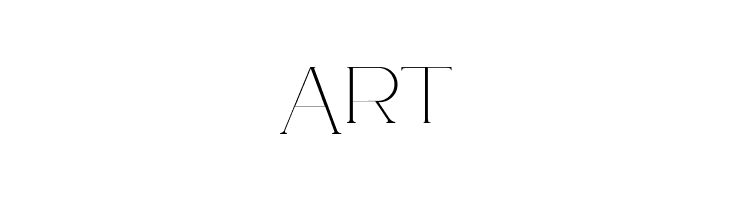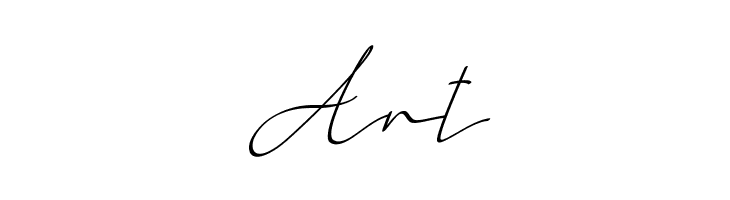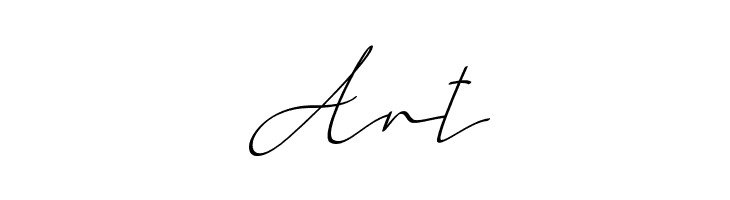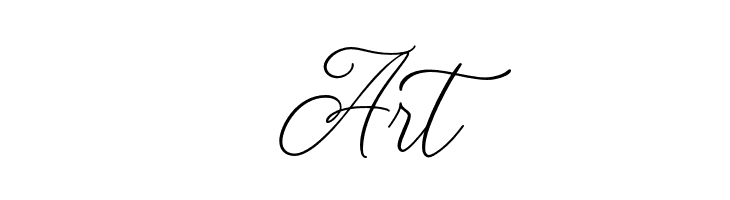
A classic serif font with high contrast and elegant, refined letterforms.
A high-contrast serif font with elegant, refined strokes and sharp serifs.
A classic serif font with elegant strokes and a refined appearance.
A high-contrast, elegant serif font with sharp serifs and refined curves.
A classic serif font with modern elegance and refined letterforms.
A modern, elegant font with high contrast and refined design.
A refined and elegant script font with flowing cursive letterforms.
An elegant script font with fluid, cursive strokes and a refined appearance.
An elegant script font with flowing, interconnected letters and a refined appearance.
A refined script font with elegant, flowing strokes and sophisticated flourishes.